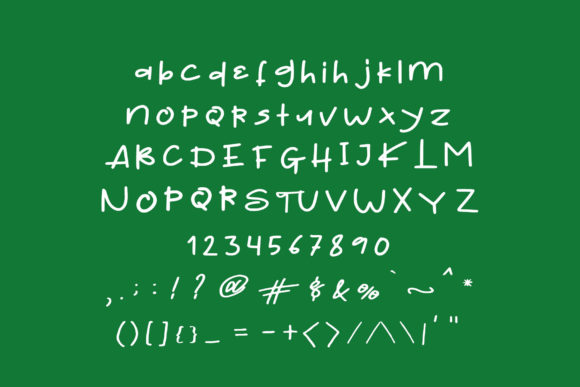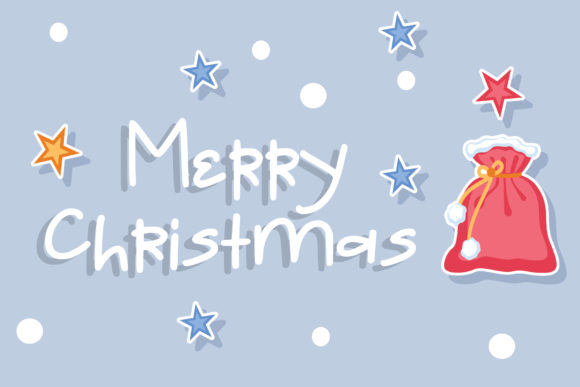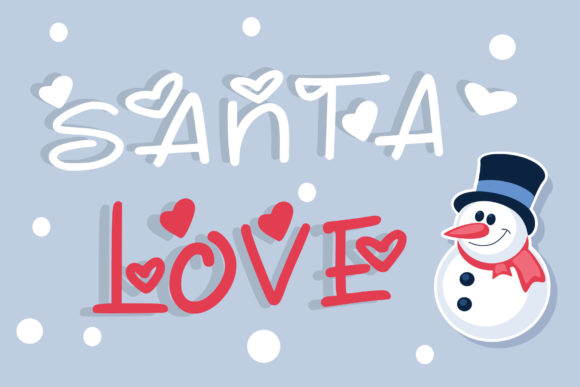
Introduction to Santa Love Font
As the snowflakes start to fall and the holiday spirit takes over, many designers find themselves in the midst of a creative frenzy, eager to bring joy and cheer to their loved ones. One of the most crucial elements in crafting a festive design is the font – and for that, Santa Love Font is the ultimate choice. This delightful winter font is the perfect companion for your holiday projects, whether it’s a card, print, invitation, or arrangement illustration.
With its high-quality design and transparent background, Santa Love Font is an invaluable resource for designers looking to add a touch of magic to their creative project. Not only is it free to download, but it’s also incredibly versatile, making it an excellent choice for a wide range of design applications.
Whether you’re a seasoned designer or a DIY enthusiast, Santa Love Font is sure to bring a smile to your face and a dash of holiday cheer to your designs. In this article, we’ll delve into the world of Santa Love Font and explore its many uses and benefits.
Key Features of Santa Love Font
- High-quality design resource with a transparent background, ideal for creative projects.
- Features a unique and festive design, perfect for Christmas and winter-themed projects.
- Supports a wide range of languages, making it a versatile font for international creative projects.
- Designed to be easy to read and use, with clear and consistent letterforms.
Honest Review: Santa Love Font
I recently had the opportunity to work with the Santa Love Font, and I must say it’s a lovely addition to any design project. As a designer, I appreciate high-quality fonts that can elevate my work to the next level.
- ✨ The font’s playful, festive vibe is perfect for creative projects, especially those centered around Christmas or winter themes.
- ✨ The transparent background option allows for seamless integration with various design elements, making it easy to customize the font to fit your design vision.
- ⚠️ The font’s versatility is somewhat limited, as it’s primarily suited for festive or holiday-themed projects.
- ⚠️ The font’s design is quite bold, which may not be suitable for all design styles or projects.
Overall, I’d give the Santa Love Font 4 out of 5 stars. While it has some limitations, its unique design and free availability make it a valuable addition to any designer’s toolkit. I’d definitely recommend it for creative projects that call for a festive, playful vibe.
The Santa Love Font is a high-quality, unique design resource perfect for creative projects. With a transparent background, it can be easily integrated into various design applications.
The Santa Love Font is perfect for creative projects, such as holiday-themed designs, party invitations, or social media graphics. It can also be used in branding, marketing materials, or other design projects that require a unique and festive touch.